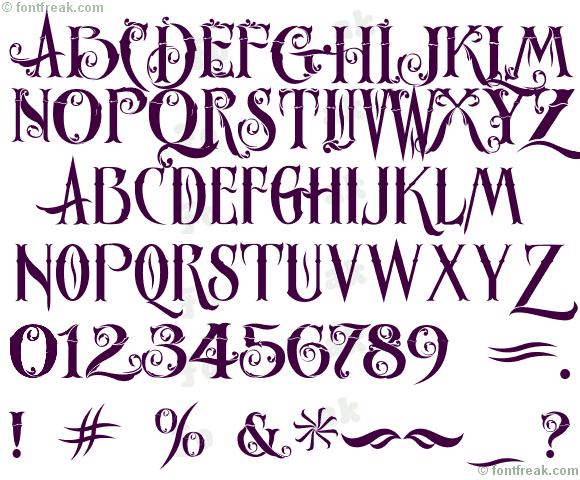
Ornatique
About Ornatique
The Ornatique font by Designstation is a striking display typeface that captures attention with its ornate and decorative style. As a unique serif font, it features elegant curves and flourishes that add a touch of sophistication to any design. The stroke weight is varied, creating a sense of contrast that enhances its visual appeal. The spacing between letters is well-balanced, ensuring readability while maintaining an artistic flair.
Ornatique is particularly well-suited for a variety of creative projects. Its eye-catching design makes it an excellent choice for wedding invitations, where elegance is paramount. Additionally, it can be effectively used in movie posters to evoke a vintage or fantasy theme, drawing viewers in with its elaborate characteristics. Restaurant menus can also benefit from this font, especially for establishments that wish to convey a sense of luxury or fine dining. Other potential use cases include branding for boutique shops and promotional materials for art exhibitions.
The target audience for the Ornatique font includes graphic designers looking to elevate their projects with a unique typeface, small business owners aiming to create memorable branding, and content creators who wish to infuse their work with a distinctive and artistic touch.